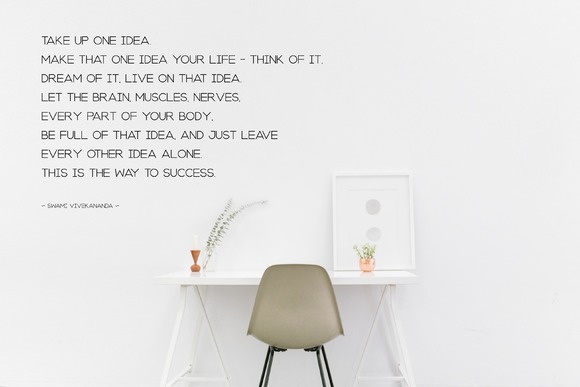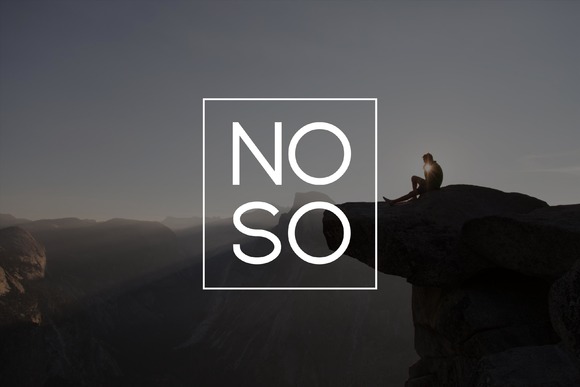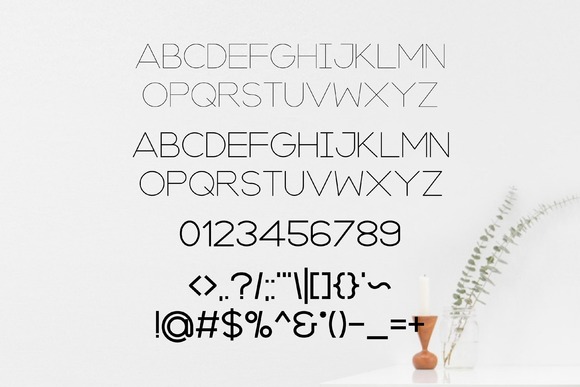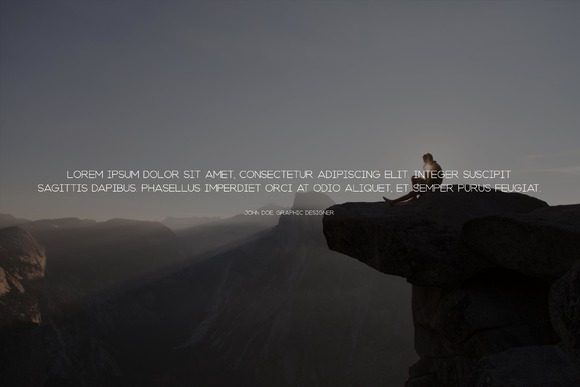
Discover the Power of Simplicity: Axon Minimalist Font
Have you ever stared at a blank page, searching for the perfect font to bring your design to life? The struggle is real, but what if I told you there’s a solution that can make your creative process a whole lot easier? Introducing the Axon Minimalist Font, a game-changing sans serif family that’s about to become your new best friend.
With its clean lines and minimal aesthetic, Axon Minimalist Font is perfect for designers who crave simplicity and elegance. This versatile font family comes with four distinct styles: Axon Regular, Axon Bold, Axon Light, and Axon Ultra Light. Whether you’re working on a logo, brochure, or website, Axon Minimalist Font is the perfect tool to help you create stunning designs that speak volumes.
Axon Minimalist Font Key Features
- Font Family: Axon Minimalist Font is a sans-serif font family designed for minimalist and modern designs.
- Font Size and Resolution: Available in 8 different weights and 4 different styles, with a resolution of 72 dpi and 300 dpi for print and digital use respectively.
- Unique Characteristics: Axon Minimalist Font features clean lines, geometric shapes, and a highly legible design, making it suitable for digital and print media.
- Character Count: The font family includes over 250 glyphs, including Latin, Cyrillic, and Greek alphabets, as well as punctuation and symbols.
Designer Review: Axon Minimalist Font
Overall, I think the Axon Minimalist Font is a solid addition to any designer’s toolkit. Here are some things that really stand out to me: ✨
- Simple, yet elegant design – the clean lines and minimalist aesthetic make it perfect for modern designs.
- Highly legible – the font is clear and easy to read, even at smaller sizes.
- Good font weight range – the Axon Minimalist Font offers a range of weights to help you achieve the perfect balance.
However, like any font, there are some limitations: ⚠️
- Not as customizable as some other fonts – the Axon Minimalist Font is a bit limited in terms of customization options.
- May not be suitable for very formal or traditional designs – the font’s minimalist style may not be the best fit for these types of projects.
Overall, I’d say the Axon Minimalist Font is a great choice for designers who want a clean, modern look without a lot of fuss. It’s not the most versatile font out there, but it’s definitely a solid addition to any toolkit.
For a clean and minimalist look, use the font in combination with a simple background and limited color palette.
For a bold and modern look, use the font in combination with a bold color and a clean background.
For a professional and minimalist look, use the font in combination with a simple background and limited color palette.
The Axon Minimalist Font is suitable for:
1. Corporate branding and marketing materials.
2. Website design and development.
3. Digital publishing and e-books.
4. Print materials such as business cards and brochures.
Alternatives to Axon Minimalist Font
The Inter Font is a highly legible and versatile sans-serif font designed for digital interfaces. It’s ideal for use in user interfaces, digital products, and applications where readability is crucial.
Comparison to Axon Minimalist Font: Inter Font is more versatile and has a wider range of weights and styles, making it suitable for a broader range of applications. While Axon Minimalist Font is more minimalist, Inter Font has a more modern and sleek feel.
Public Sans Font
The Public Sans Font is a modern sans-serif font designed for use in digital products, publications, and other applications. It’s highly legible and suitable for both body text and headings.
Comparison to Axon Minimalist Font: Public Sans Font has a more geometric and modern feel, whereas Axon Minimalist Font is more minimalist and clean. Public Sans Font is also more versatile and has a wider range of weights and styles.